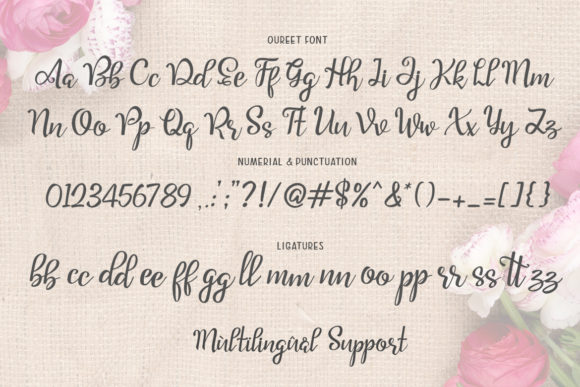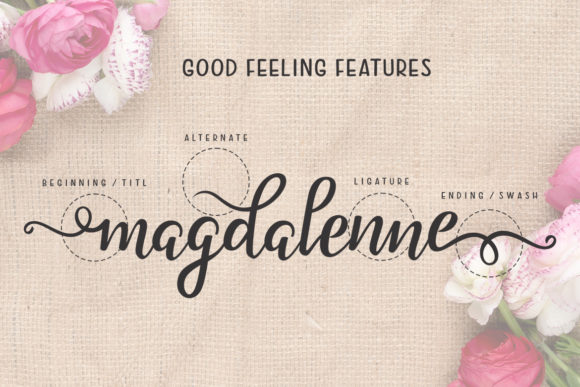
Good Feeling Duo Font
db-ku.com - Script & Handwritten -- The Good Feeling is a stunning and comprehensive font duo, perfect for giving your projects a branded but friendly feel. The two included styles can be combined together perfectly but are also perfect as great standalone’s.